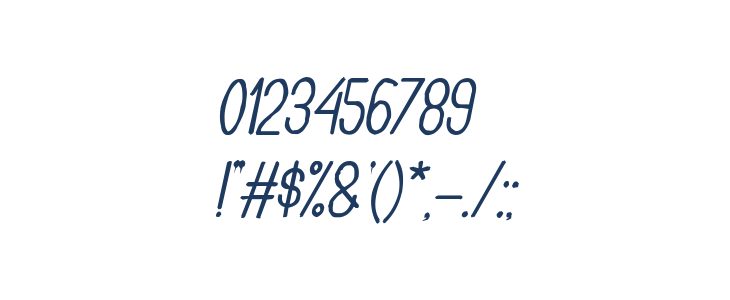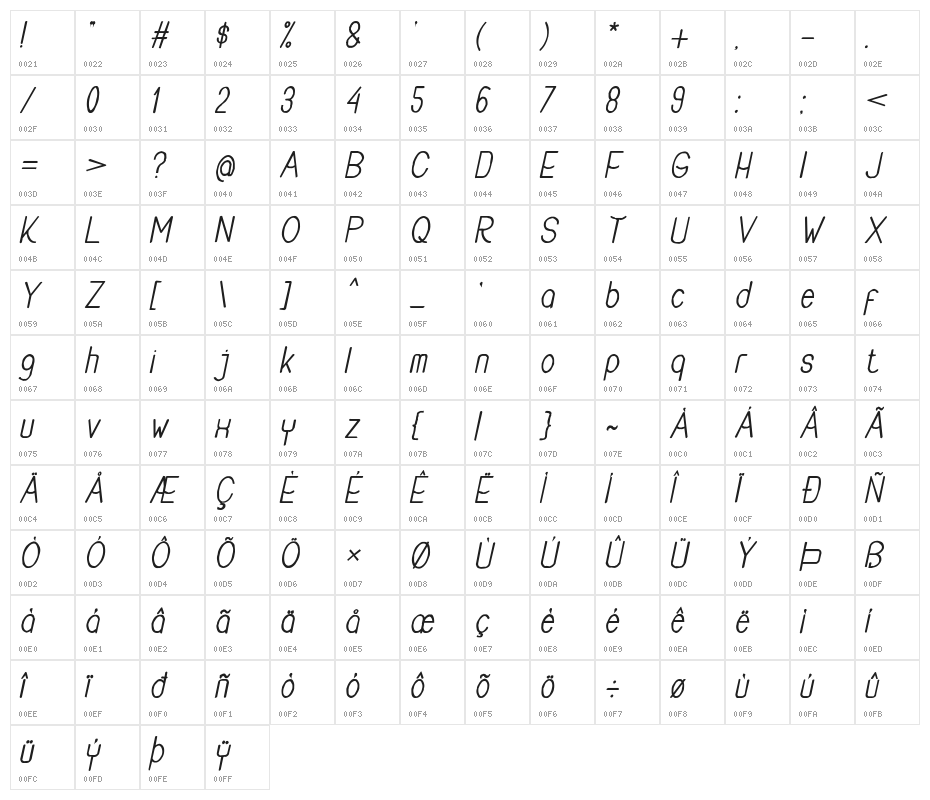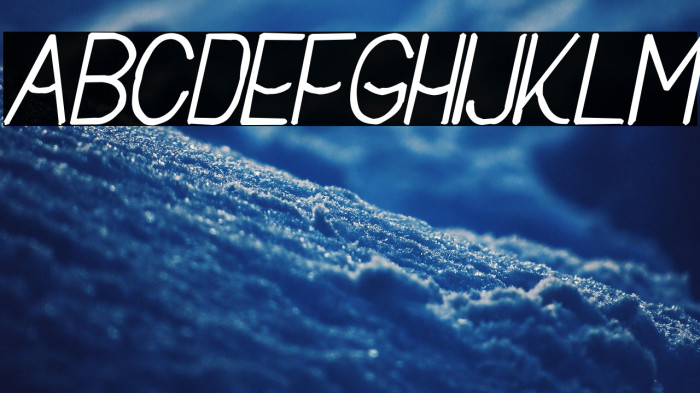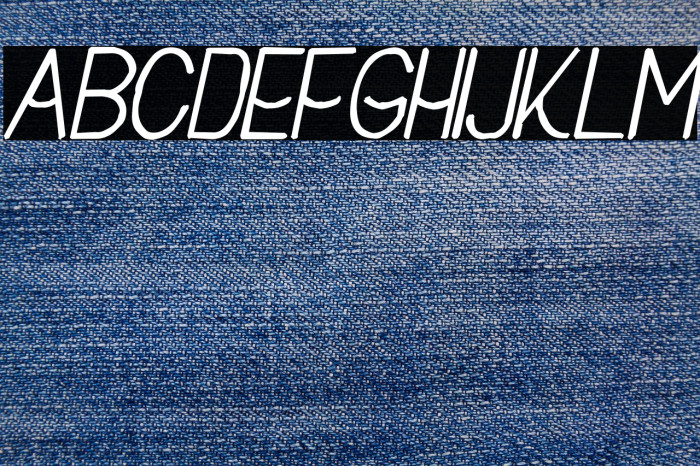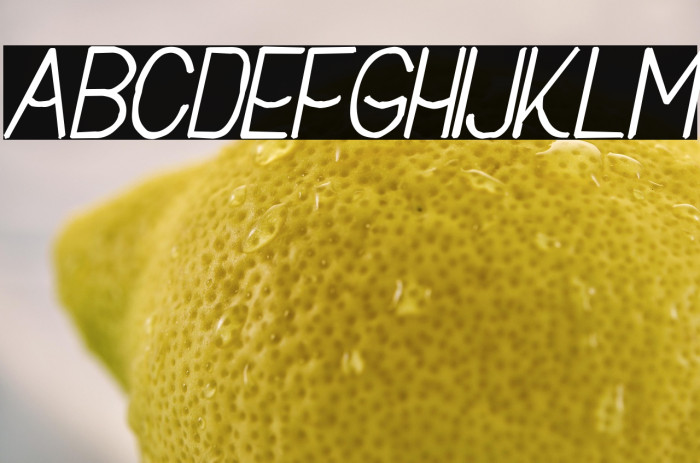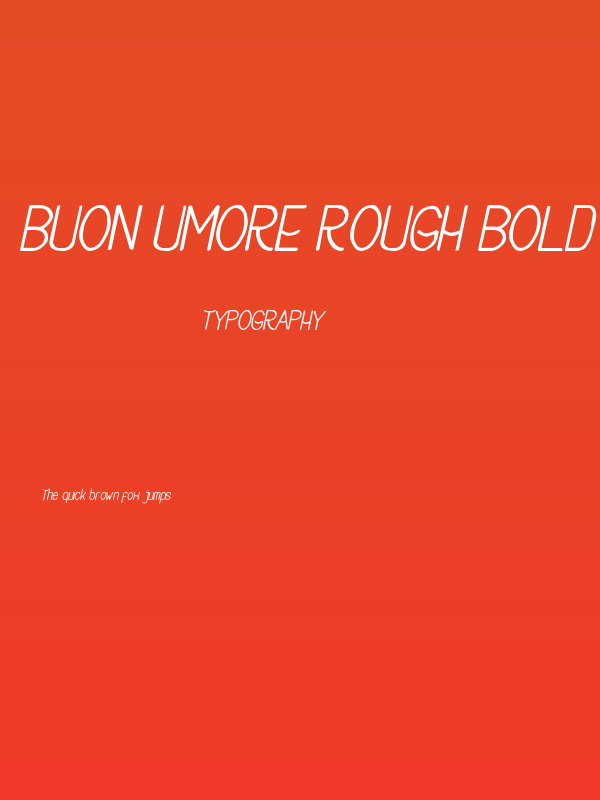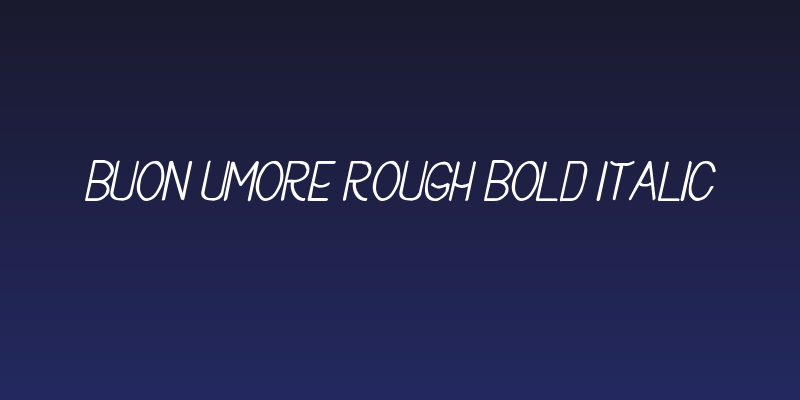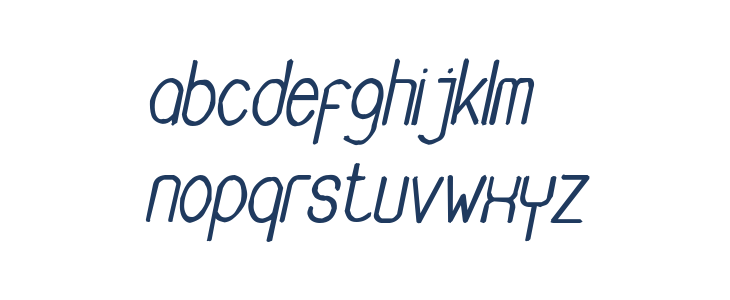
Buon Umore Rough Bold Italic Font
Buon Umore Rough Bold Italic Description
This font features a playful and dynamic style, characterized by its rough and bold italic design. The letters are slightly slanted, adding a sense of movement and energy. The strokes are uneven, giving it a hand-drawn appearance that is both casual and artistic. The uppercase and lowercase letters maintain a consistent style, with rounded edges and a slightly condensed form. The numerals and special characters follow the same aesthetic, ensuring a cohesive look across all text elements. This font is ideal for projects that require a touch of creativity and informality.